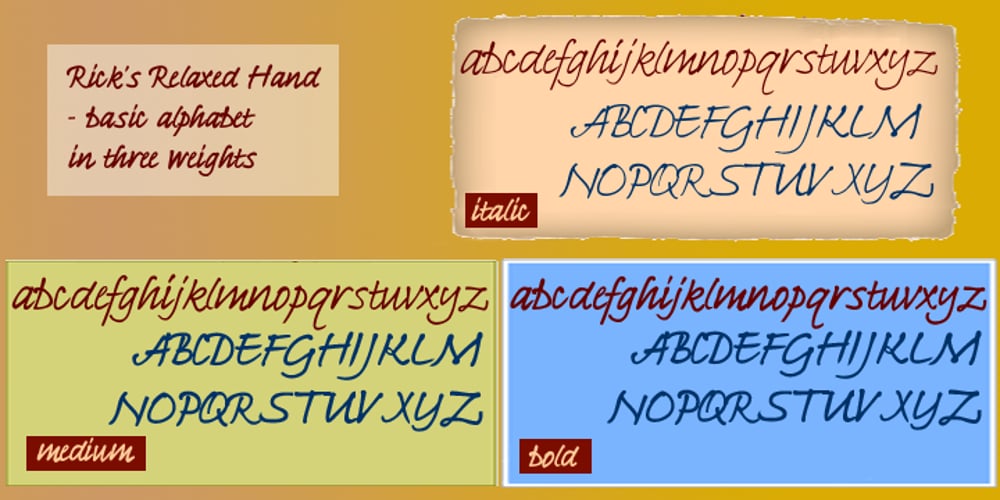
Ricks Relaxed Hand
Ricks Relaxed Hand font
Ricks Relaxed Hand Font Family was designed by Richard Bradley and published by New Renaissance Fonts. Ricks Relaxed Hand contains 3 styles and family package options. Relaxed italic calligraphy from Richard Bradley, a complement to his more formal Fine Hand and Bible Script. Very usable for greetings card, invitations, notices, and whatever you like.